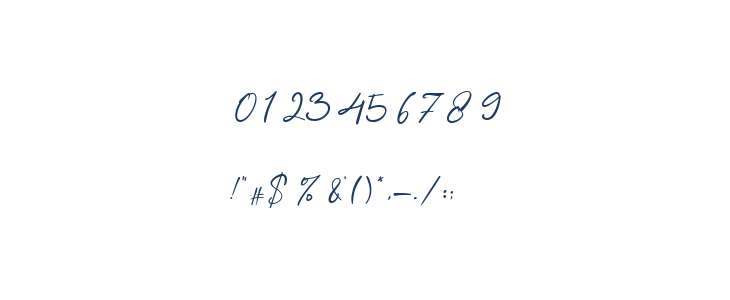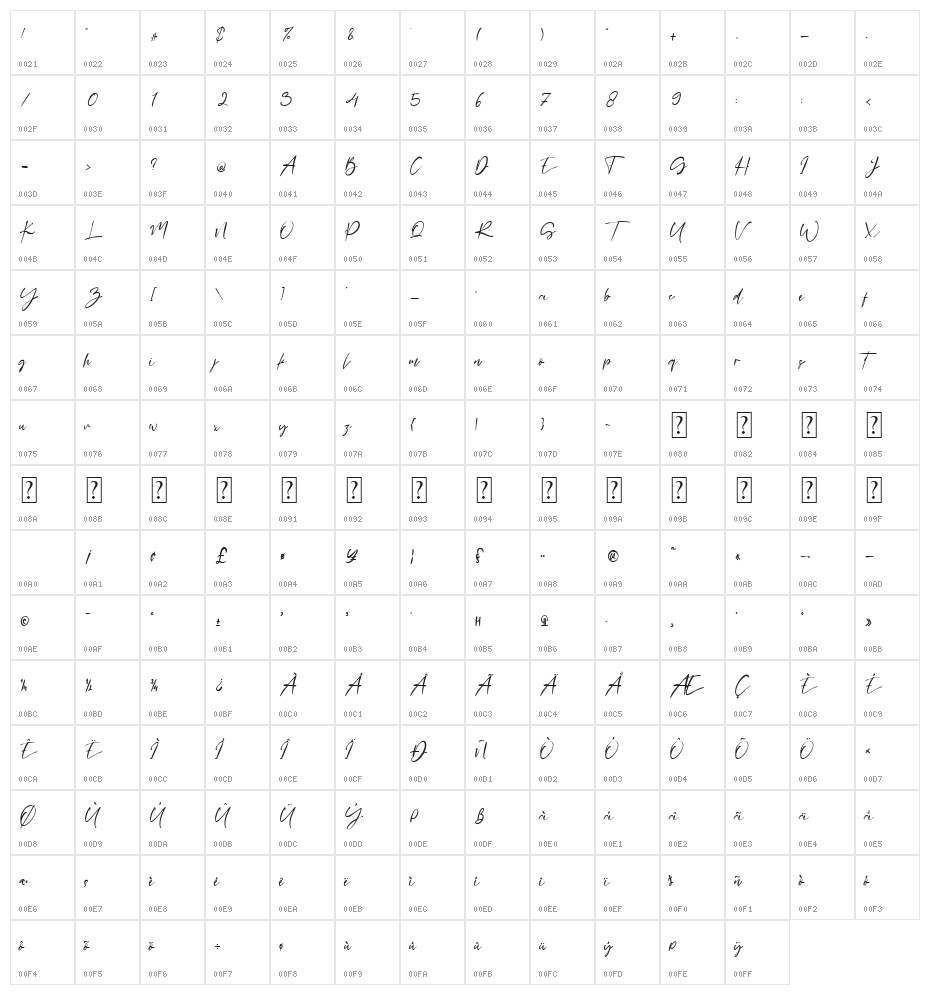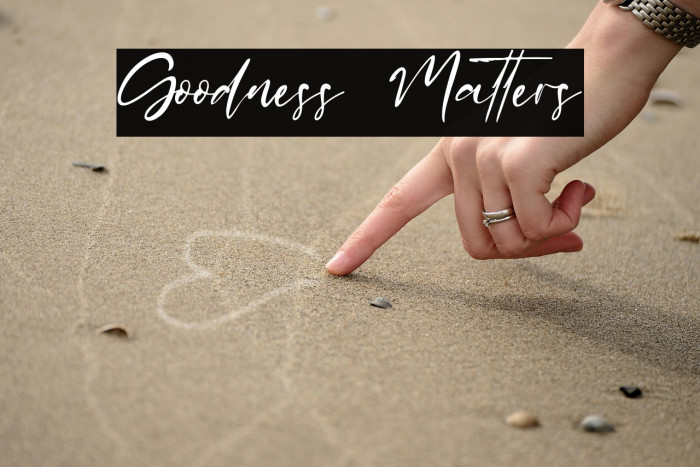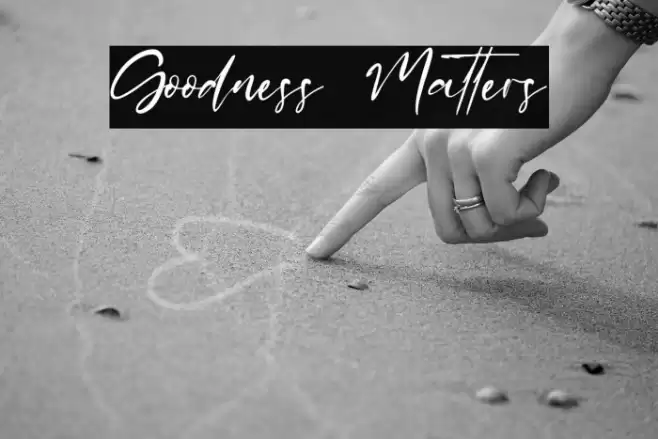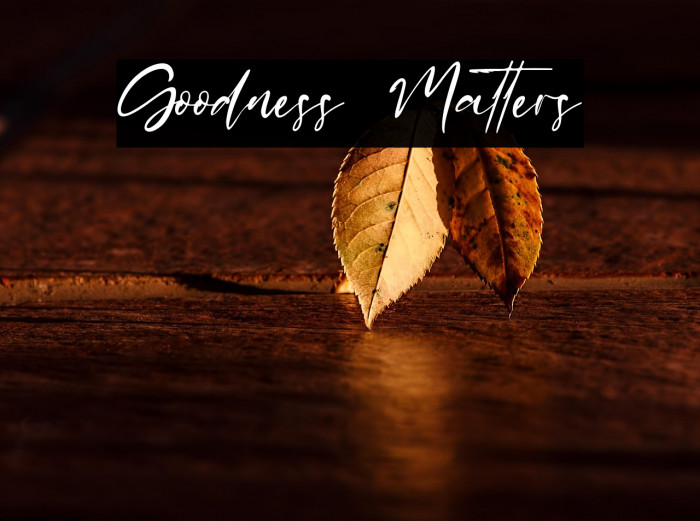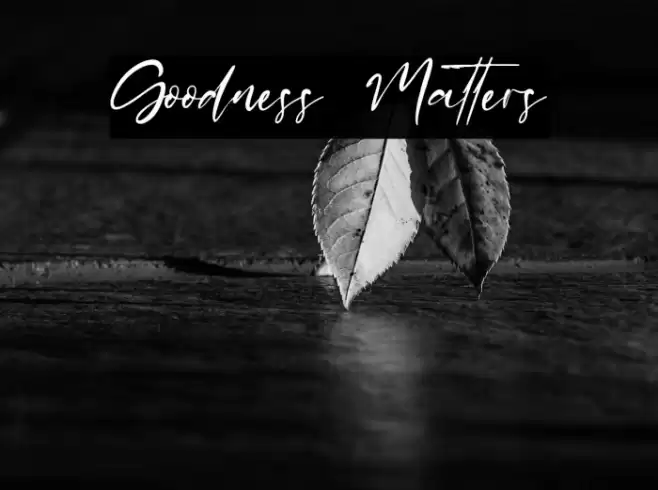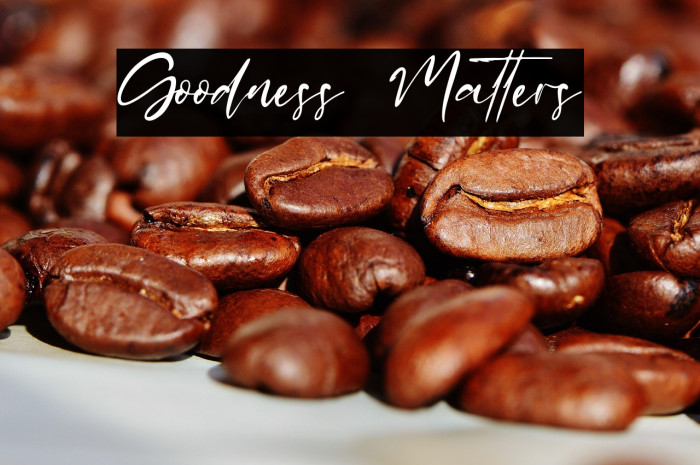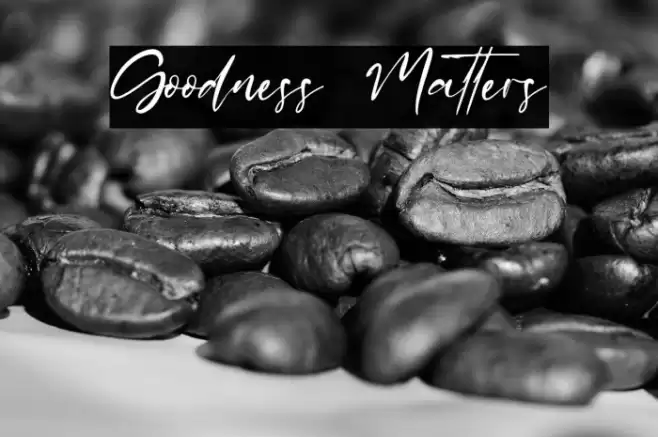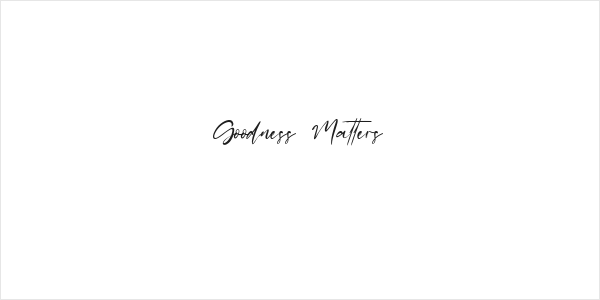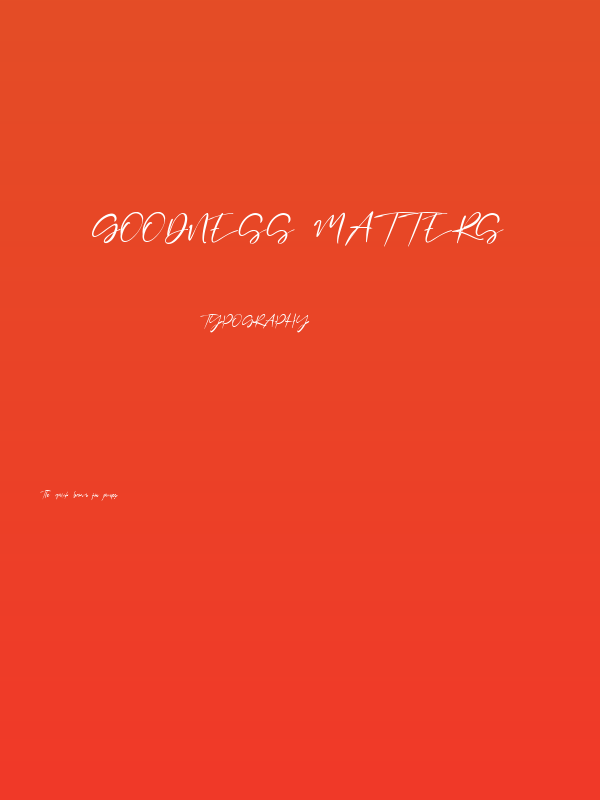
Goodness Matters Font
Goodness Matters Description
This font exudes a modern and elegant handwritten style, characterized by its fluid and dynamic strokes. The uppercase letters are bold and slightly slanted, giving a sense of movement and grace. The lowercase letters maintain a consistent flow, with some characters featuring unique loops and flourishes that add to the font's charm. The numerals are clear and easy to read, while the special characters blend seamlessly with the overall design. This font's aesthetic is both sophisticated and approachable, making it versatile for various design needs.
| Use Case | Logos, Invitations, Social Media Graphics |
| Proposed Projects | Ideal for wedding invitations, branding projects, social media graphics, and personal stationery. |